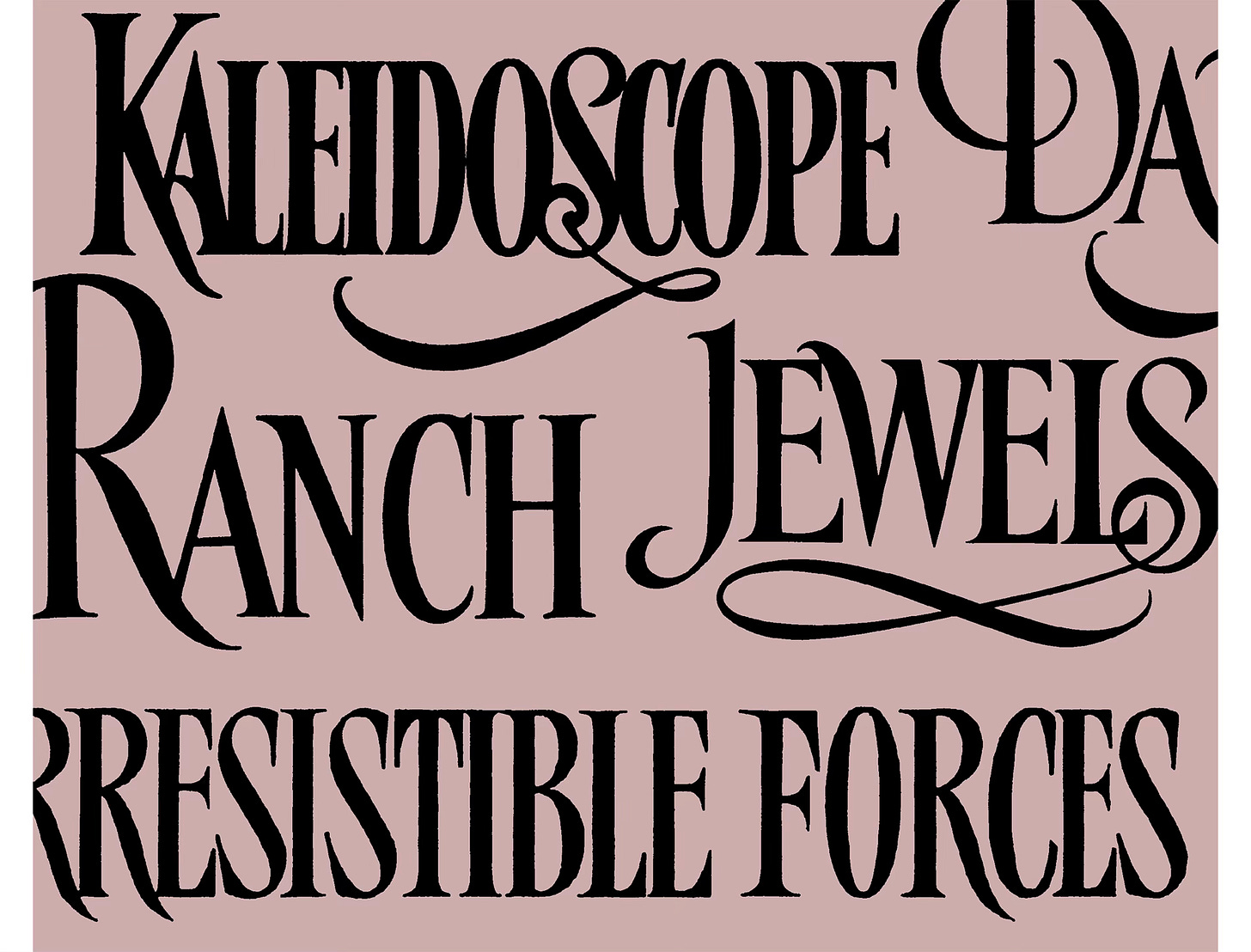
The allure of a book often begins with its cover, a fact I’m reminded of every time I hunt for lettering inspiration on the shelves of used bookstores. That’s where I first encountered the work of David Gatti. Amid the dusty spines, his striking yet understated letterforms stood out on Danielle Steel and Sidney Sheldon novels from the 1980s and ’90s, drawing me in with their quiet confidence.
An ambitious SA ligature for Danielle Steel’s wordmark
Skilled in a wide range of styles, Gatti’s talent isn’t limited to the romance genre. I’ve spotted his creations on the covers of horror novelist Peter Straub, screenwriter Timothy Harris, and Pulitzer Prize-winner Wallace Stegner. (That’s one heck of a resumé!)
The understated elegance of Gatti’s hand-lettered book titles
What makes Gatti’s work turn heads is its ability to grab attention without overwhelming the viewer. His hand-crafted approach brings warmth and personality to every cover he touches, transforming simple titles into alphabetic works of art. Gatti’s mastery reminds us that hand-lettering can speak volumes long before the story even begins.